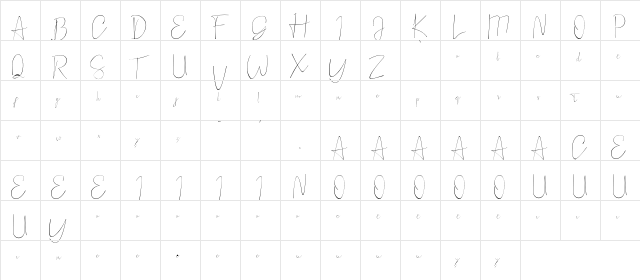
Silhouette Phantom Regular
Design Context for Silhouette Phantom Typeface
Silhouette Phantom is a composed and adaptable typeface that performs quietly and consistently across a wide range of design contexts.